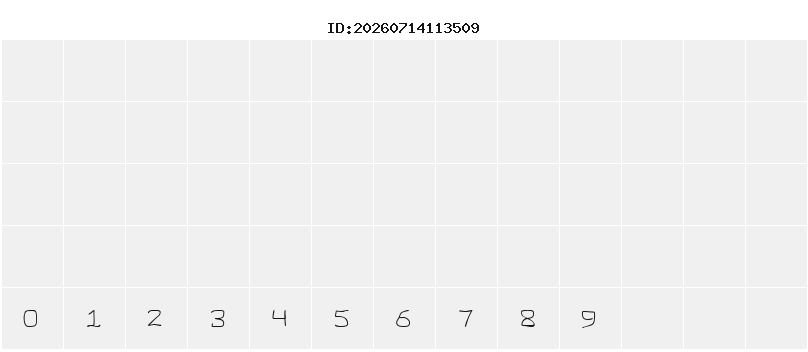
Helem Preview
• Font Name: Helem
• Full Font Name: Helem Regular
• Designer: Meir Sadan
• Description: This is a hebrew font, so go read the hebrew description at sadan.com!
About Helem.ttf
Helem.ttf is a modern, elegant sans-serif font designed for ultimate readability and visual harmony. Perfect for branding, headlines, web design, and print materials.